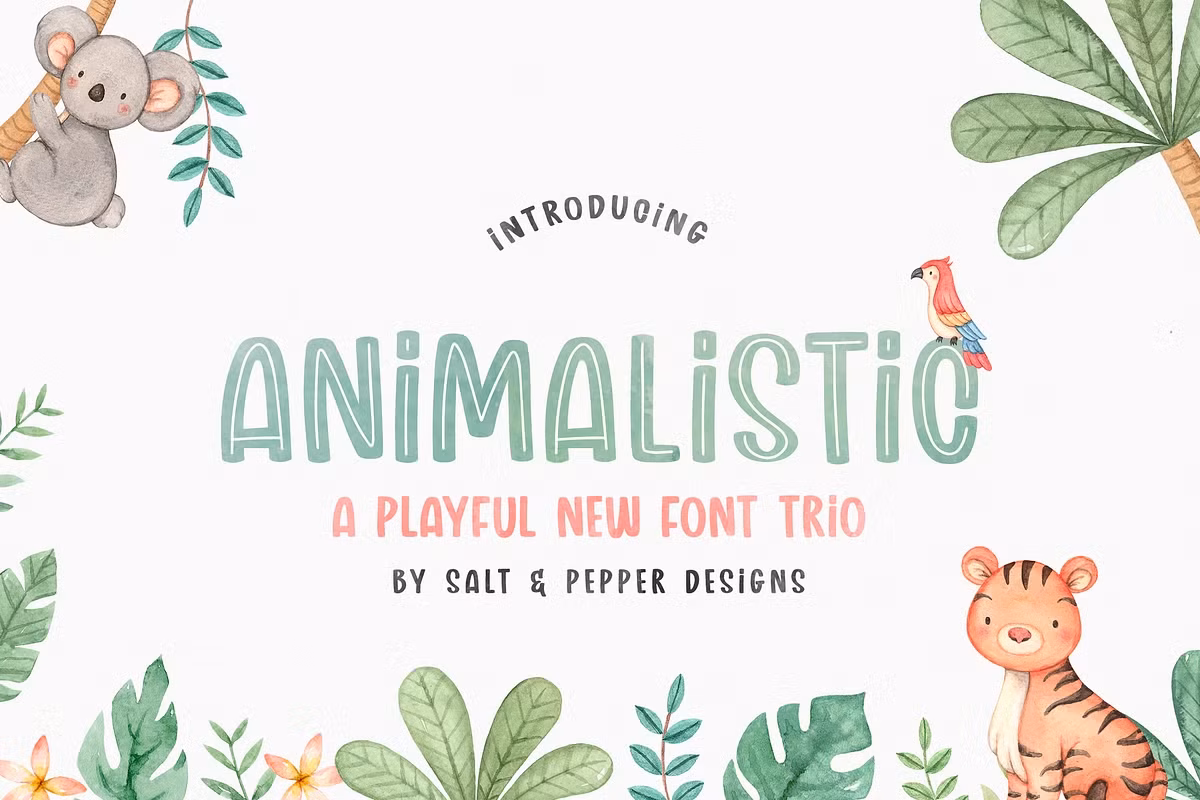
Bring wild energy to your designs with the Animalistic Font Trio Free Download. This collection includes three unique fonts, each inspired by the raw power and boldness of the animal kingdom. Perfect for logos, posters, apparel design, and branding, the Animalistic Font Trio adds a fierce and creative edge to any project.
The trio includes a mix of rough, distressed textures, playful brush strokes, and strong geometric forms, giving you versatility and style for all kinds of designs. It includes uppercase and lowercase letters, numerals, punctuation, and stylistic alternates, providing you with everything you need to create impactful and dynamic layouts.